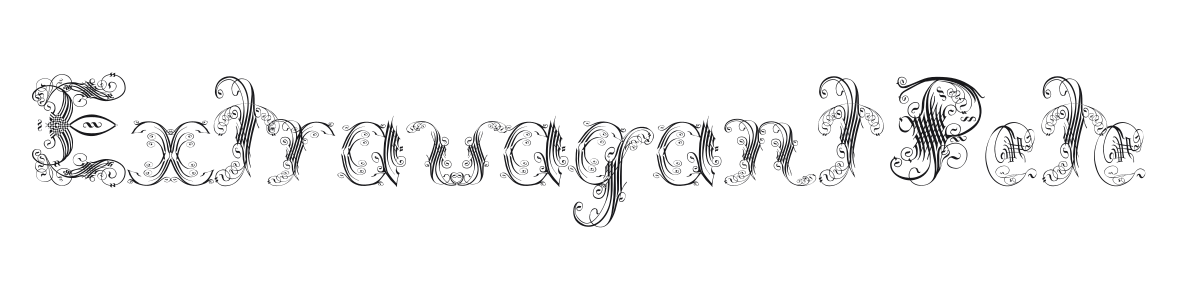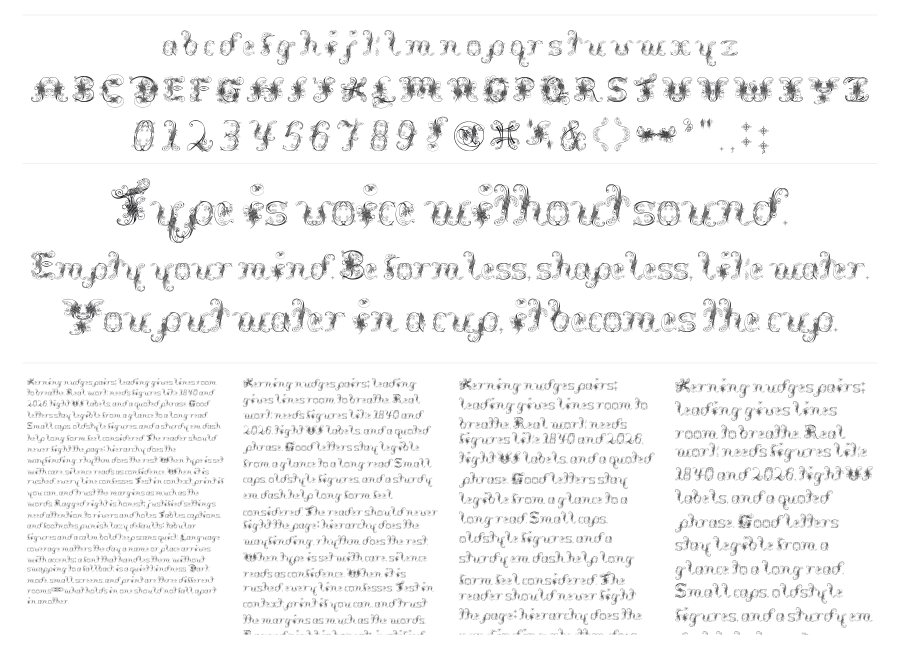
Extravagant Pete
Extravagant Pete is a heavily ornamented cursive display font dripping with Victorian-era flourishes and spiraling tendrils. Each character is built around intricate inline strokes and swirling extensions that interlock across words, creating an almost lace-like texture. It commands attention at large sizes and suits any project that needs unrestrained decorative energy.